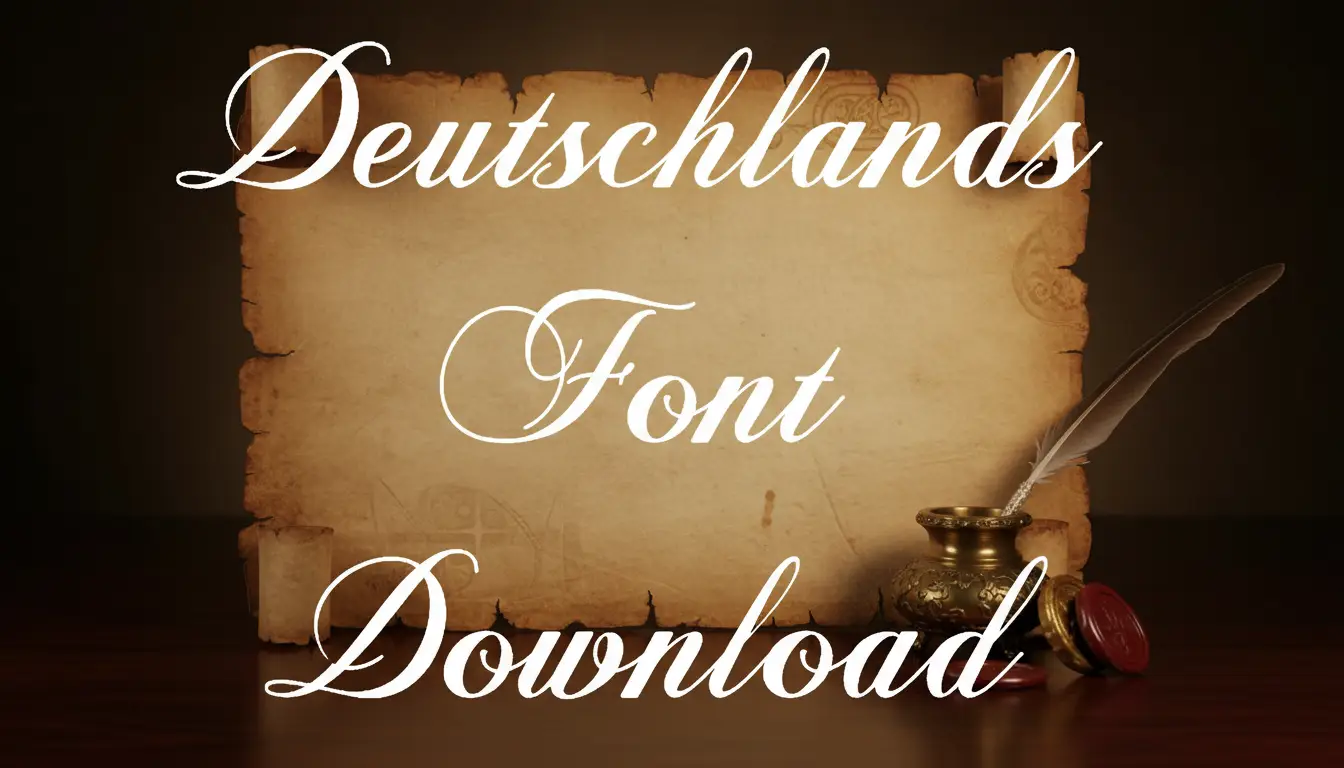
Deutschlands Font
Deutschlands is a script font created by Muhamad Fikry Nuralif and released through Fikryal Studio. It has that hand-lettered, flowing feel people look for when regular type seems too stiff. It's a free download, and you can try it with your own text in the preview above first.
What You Can Type With Deutschlands
You get every letter from A to Z in both cases and all the numbers from 0 to 9, which means Deutschlands can handle full sentences, dates and prices. Common punctuation such as &, !, ? and @ is included as well. It also has the accented letters you need for Spanish, French, German, Portuguese and Italian.
Where Deutschlands Works Best
Designers usually reach for fonts like Deutschlands when they're making wedding invitations, logos and signature-style headings. Script fonts read best in short bursts, so keep it to names, titles and one-line quotes. Skip all caps: script capitals are drawn to start a word, not to fill one.
Does Deutschlands support accented letters?
Yes. Deutschlands includes the accented letters needed for Spanish, French, German, Portuguese and Italian, so it works for more than just English.